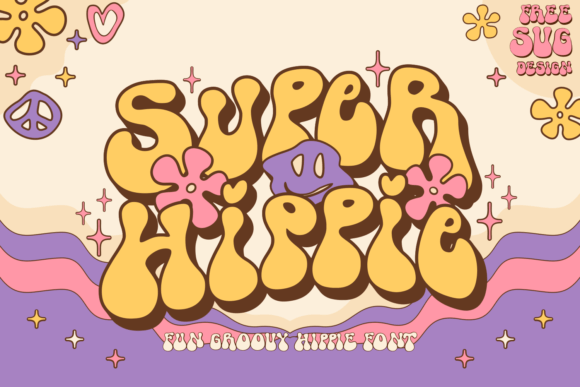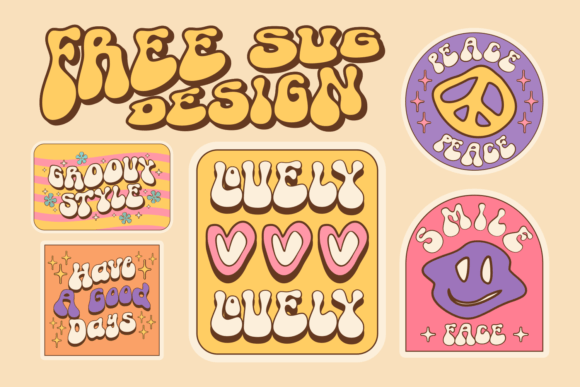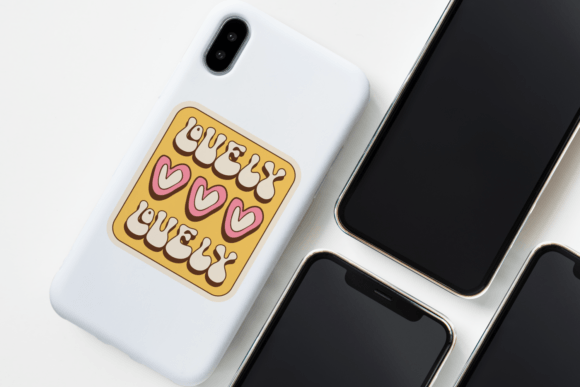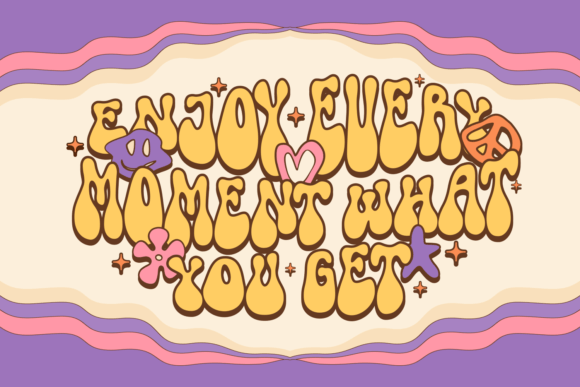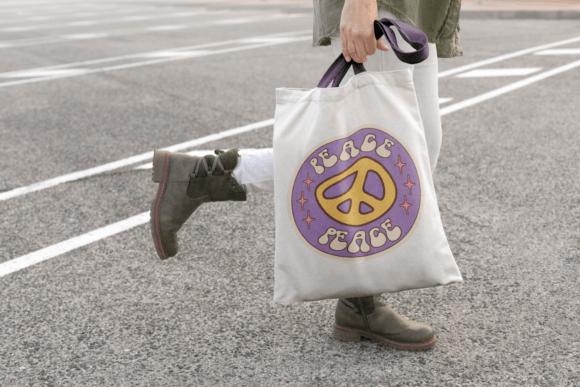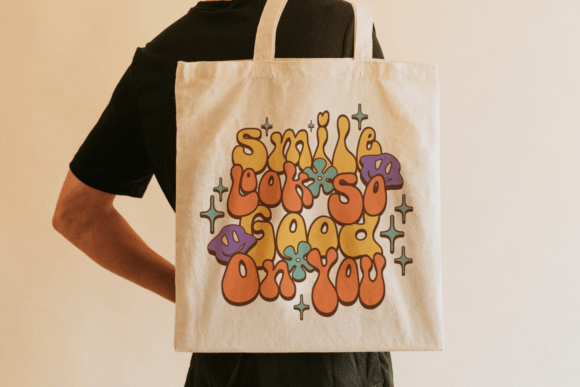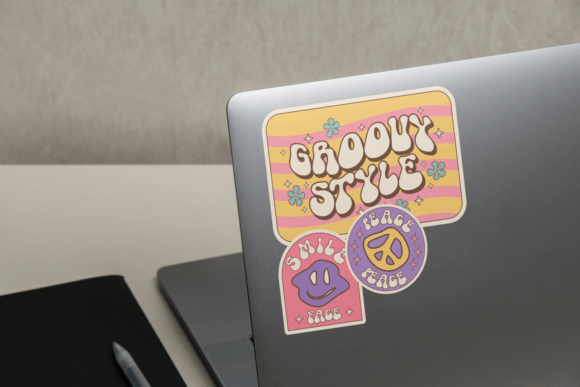
Super Hippie Font
With its lively and energetic design, this font transports you back to a time of peace, love, and a rebellious spirit. It invites you to embrace your individuality, and let your creativity run wild. Whether used for headlines, posters, or other design projects, it adds a touch of nostalgia and a vibrant retro vibe to any text.